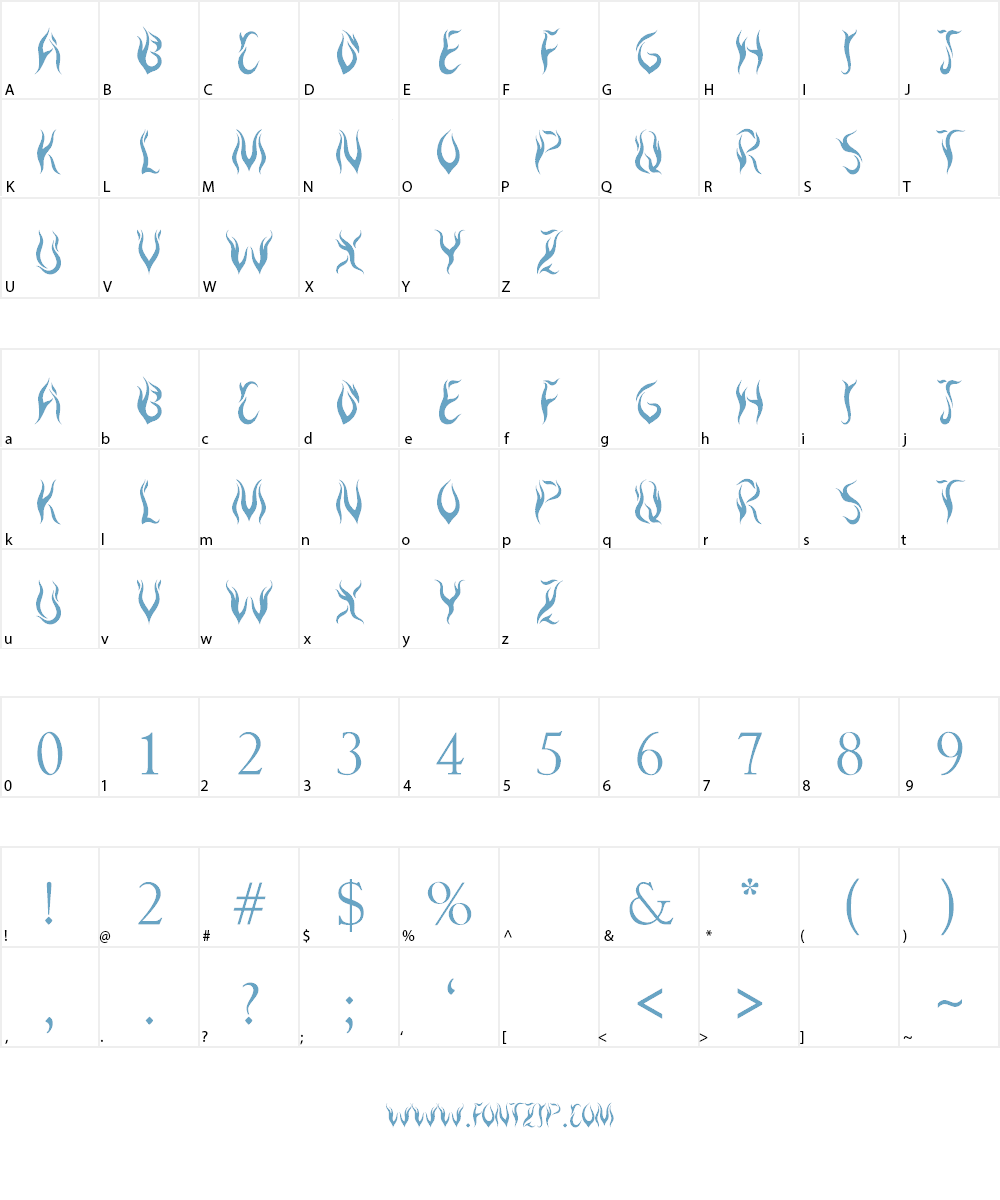
Font was designed using basic flame shapes, drawn by Jonathan Harris. 'Royal Inferno' is free for personal use but if you would like to use it for commercial purposes you will need to purchase a license. For further details go to http://www.tattoowoo.com/fonts